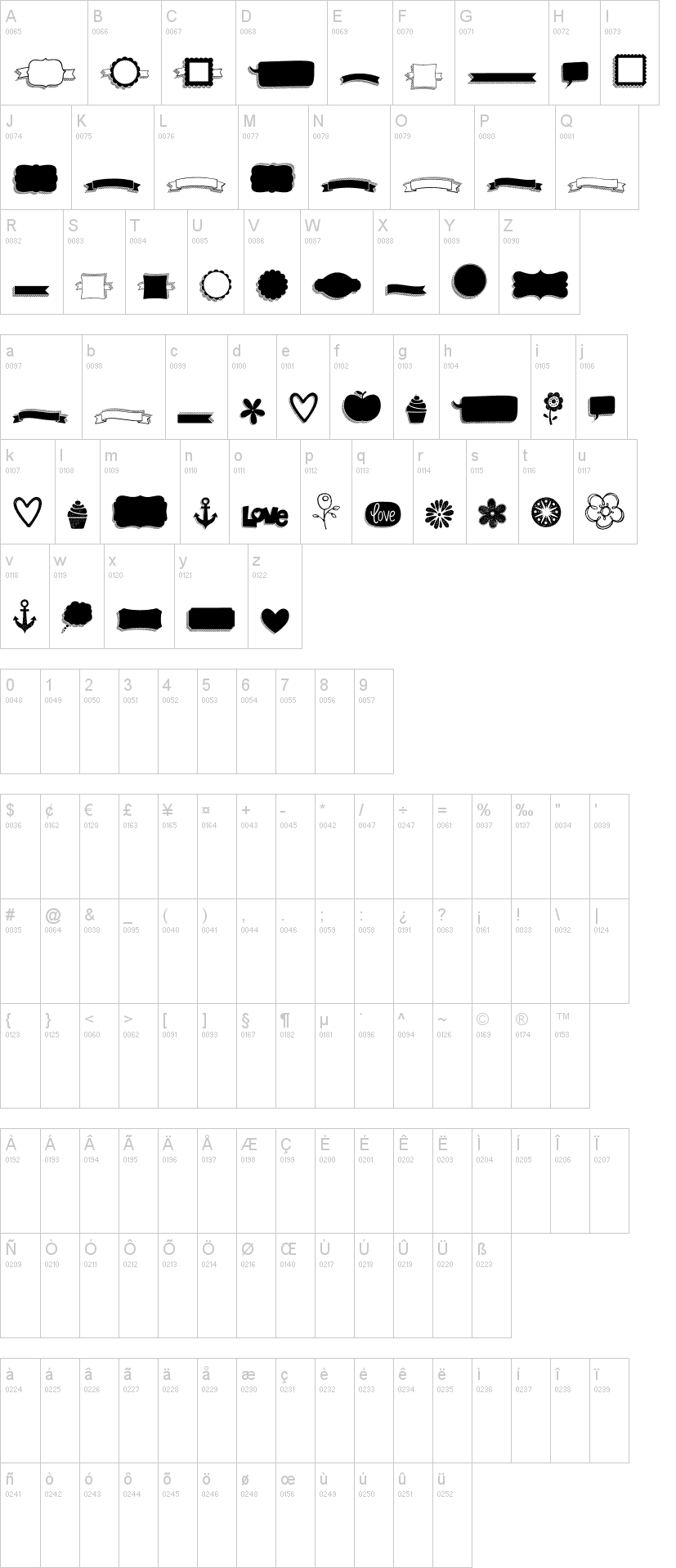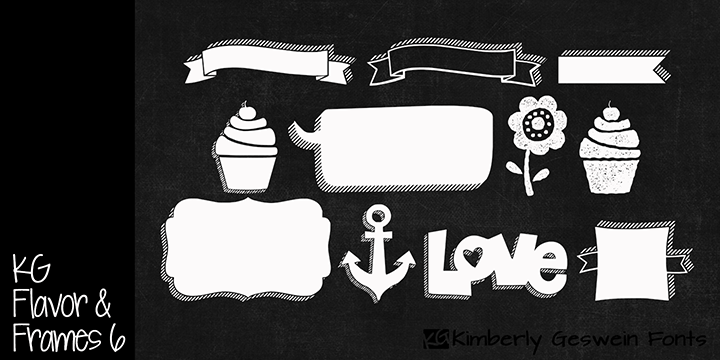
Note of the authorFree for personal use. For commercial licensing, please see http://kimberlygeswein.com. These are remixes of my previous frames specifically designed to use on chalkboard art.